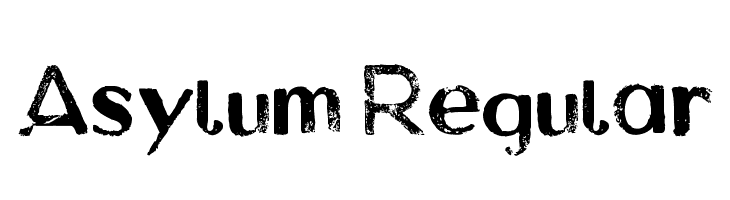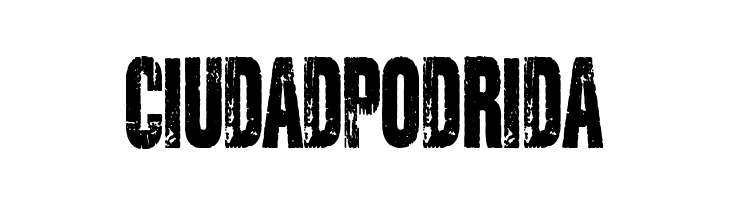
A playful and elegant cursive font with flowing, graceful strokes.
A playful, bold handwritten font with thick, rounded strokes.
An abstract, artistic font with bold, organic shapes and a dynamic flow.
A bold, playful handwritten font with thick, rounded strokes.
Bold, italicized font with a dynamic and modern style.
A bold, dynamic brush script font with expressive strokes.
A delicate, handwritten cursive font with elegant, flowing strokes.
A bold, italicized font with a futuristic and angular design.
A bold, distressed font with a grungy, hand-painted appearance.
A geometric, modern font with tall, narrow characters and sharp angles.
A rough, hand-drawn font with thin, irregular strokes and a dynamic, edgy style.
A bold, modern font with geometric shapes and striking contrast.
A bold, playful, hand-drawn font with rounded edges.
A whimsical and playful font with curly, flowing letterforms.
A bold, futuristic font with angular, expanded, and italicized characters.
An abstract, barcode-like design with fragmented characters, ideal for tech or avant-garde themes.
A hollow, geometric font with a digital, fragmented style.
A bold, expressive handwritten font with tall, narrow letters and fluid strokes.
A bold, futuristic font with a halftone effect and geometric design.
A decorative, hollow font with bold, curvy outlines and a playful style.
A novelty font made up of assorted decorative frame outlines.
Tall, thin monoline handwritten script with playful, casual style.
A bold, 3D italic font with a futuristic and dynamic style.
A bold, textured font with a distressed, vintage look.
A dynamic and elegant script font with fluid, cursive strokes.
An elegant, flowing script font with sophisticated cursive letterforms.
A playful, bold font with thick, uneven strokes and a whimsical style.
A whimsical, pirate-themed font with playful, hand-drawn characters.
A bold, expressive script font with high contrast and dynamic flow.
A playful yet elegant font with art deco influences and thin, elongated strokes.
A playful, fluid handwritten font with smooth, flowing lines.
A bold, brush-style font with high contrast and dynamic character shapes.
A striking serif font with sharp angles and smooth curves, exuding elegance.